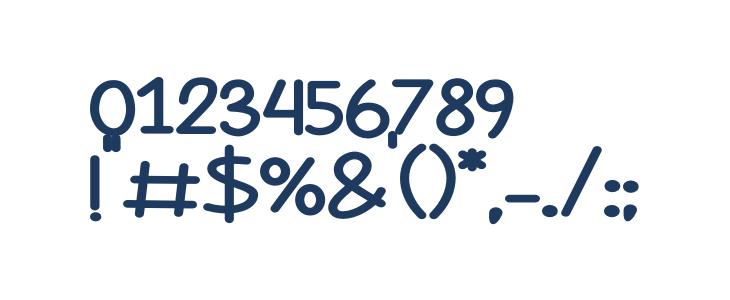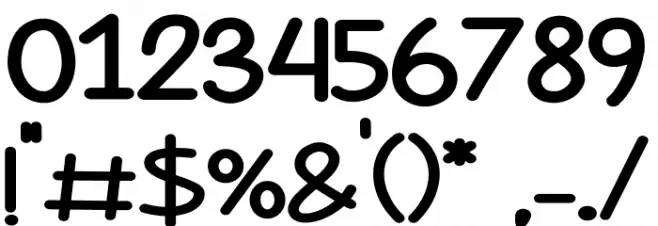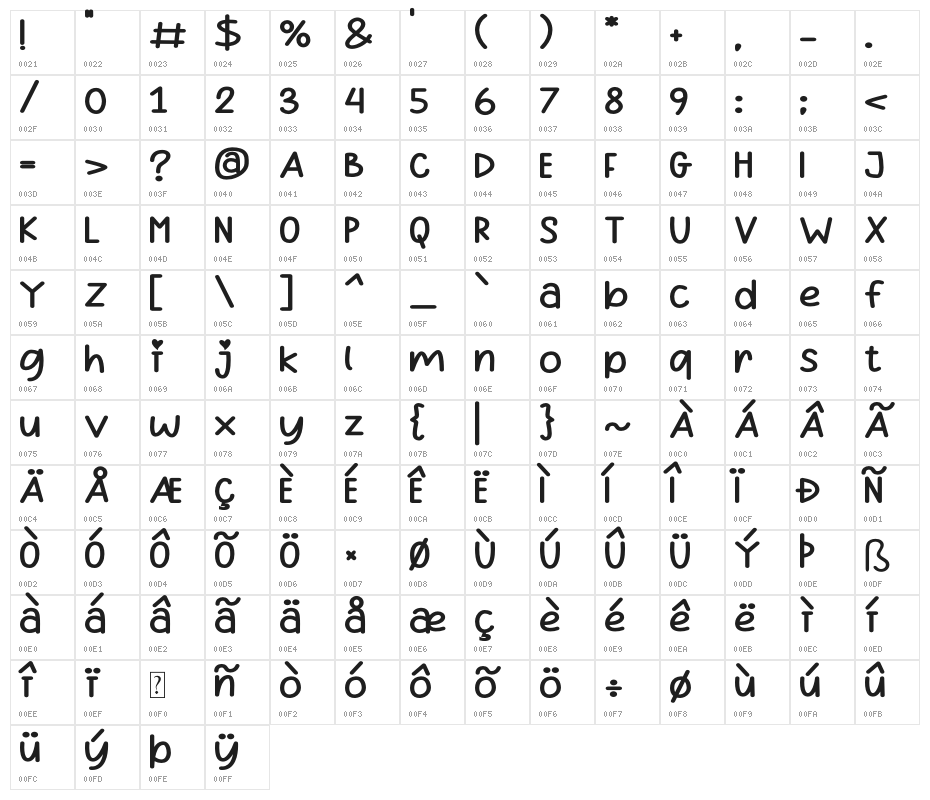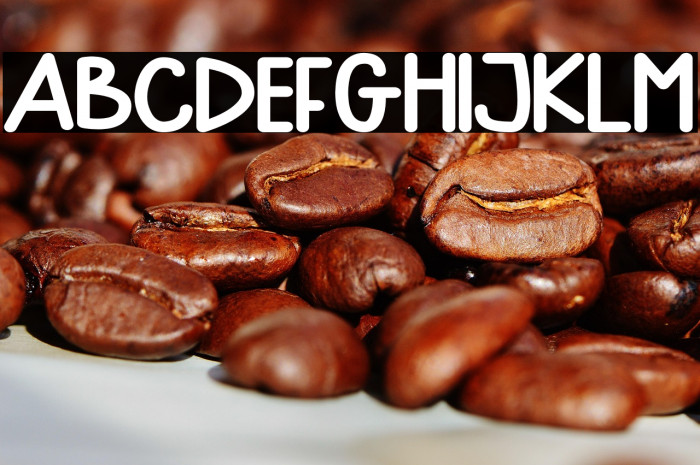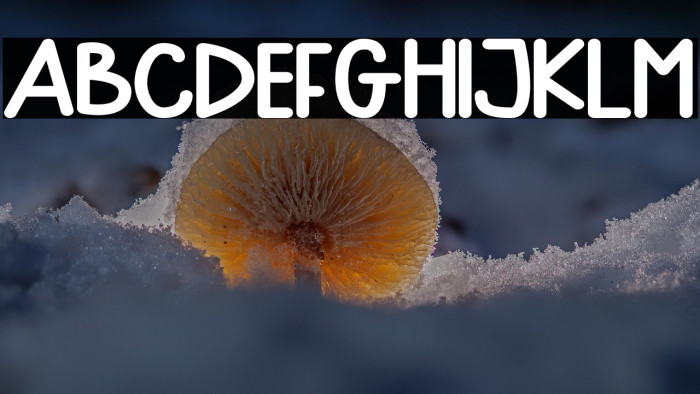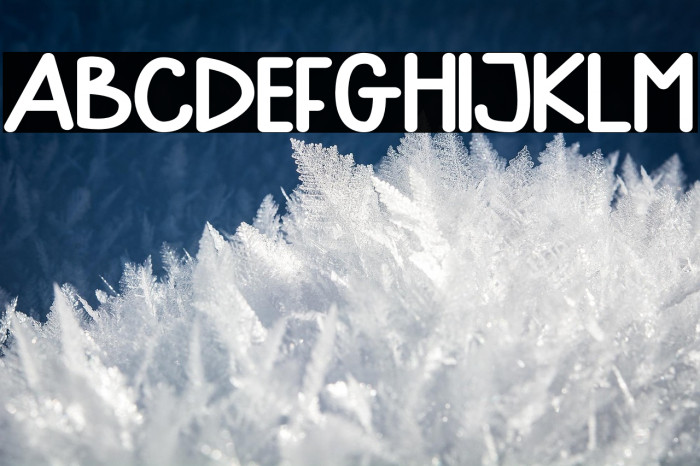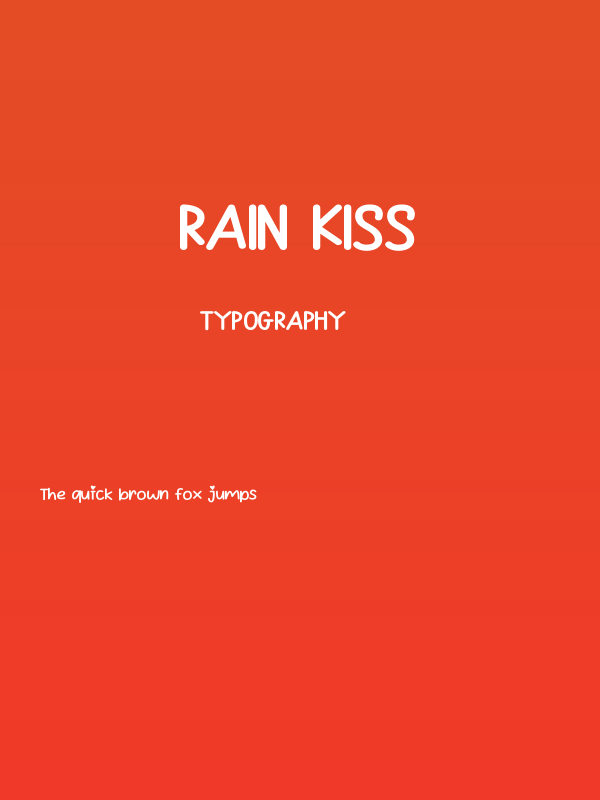
Rain Kiss Font
Rain Kiss Description
This playful and whimsical font features rounded, bubbly characters that exude a sense of fun and friendliness. The uppercase letters are bold and slightly irregular, adding to the casual and approachable feel. Lowercase letters maintain a consistent style with a few unique touches, such as the heart-shaped dots on the 'i' and 'j', enhancing its charm. The numerals are clear and easy to read, while the special characters follow the same rounded and playful design. Overall, this font is perfect for projects that require a lighthearted and informal tone.
| Proposed Projects | Ideal for children's books, playful branding, greeting cards, and casual invitations. |